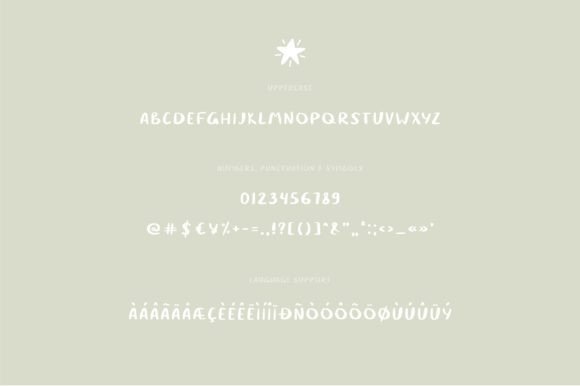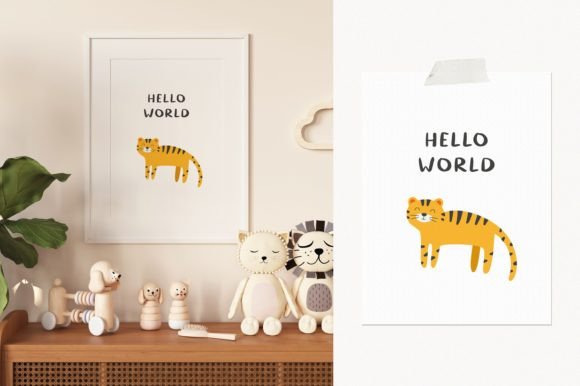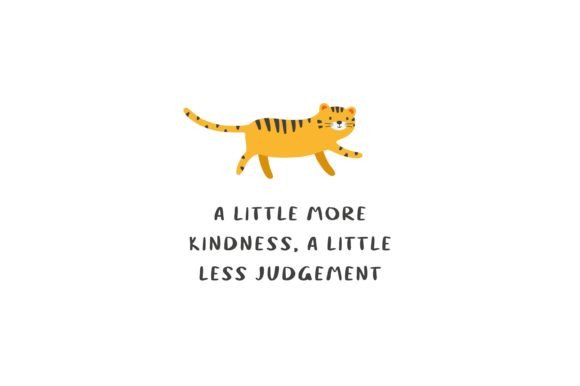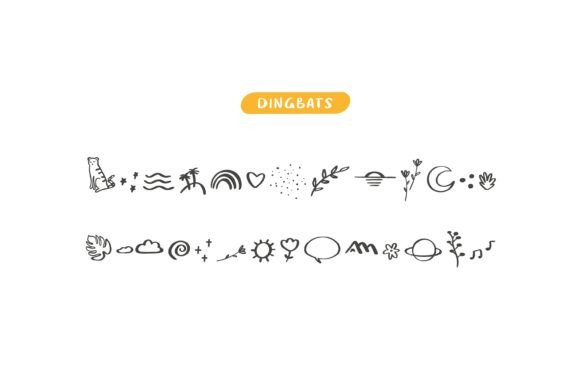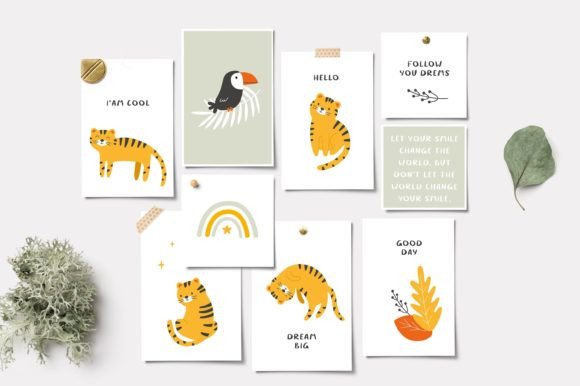
The Joy of Typography: Introducing Cute Tiger Font
Have you ever been working on a design project and suddenly, a spark of inspiration hits you? You envision a whimsical world filled with colorful characters and playful fonts. For me, that moment often involves digging through my font library in search of the perfect match. And that’s exactly where I found it – Cute Tiger Font.
Cute Tiger Font is a delightful display font designed to bring a smile to your face. With its friendly and approachable vibe, it’s perfect for cartoon-related designs, children’s games, quotes, titles, brand names, book covers, posters, and more. Whether you’re a seasoned designer or just starting out, this font is a valuable addition to your toolkit.
What sets Cute Tiger Font apart is its ability to evoke a sense of joy and playfulness, making it an ideal choice for designers looking to add a touch of whimsy to their creations. In this article, we’ll explore the world of Cute Tiger Font and discover why it’s a must-have for any designer looking to bring a smile to their audience’s faces.
Cute Tiger Font Key Features
- Unique Characteristics: Cute Tiger Font features a playful, hand-drawn design with rounded edges and soft lines, giving it a cute and endearing feel.
- Style Variations: The font comes in two styles: Regular and Bold, allowing designers to add emphasis and create visual hierarchy in their designs.
Cute Tiger Font Review
I recently had the chance to work with the Cute Tiger Font, and I must say it’s a unique and playful addition to any design project. ✨ One of the things that stands out about this font is its whimsical feel, making it perfect for children’s books, greeting cards, or any other project that needs a touch of fun.
- High-quality glyphs: The font includes a wide range of glyphs, including numerals, punctuation, and special characters, ensuring that your design is complete and professional-looking.
However, I did encounter a few limitations ⚠️ while working with the Cute Tiger Font:
- Compatibility issues: I experienced some compatibility issues with certain software and operating systems, which required me to seek alternative solutions.
- Limited language support: The font may not be suitable for projects that require support for multiple languages, as it only includes a limited set of language-specific glyphs.
Overall, the Cute Tiger Font is a great choice for designers who want to add a playful touch to their projects. While it has its limitations, its unique style and customization options make it a valuable addition to any design library.
Cute Tiger Font is perfect for creating playful and whimsical designs, such as:
- Children’s party invitations
- Food and beverage branding
- Gift tags and wrapping paper
- Quirky social media posts
Alternatives to Cute Tiger Font
Great Vibes is a fun, cursive script font that can be used for titles and headings in designs that require a playful touch. It has a similar whimsical feel to Cute Tiger Font, but with a more elegant and refined look.
Comparison: Great Vibes has a more polished and sophisticated design compared to Cute Tiger Font’s more childish and cartoonish feel. It’s suitable for a wider range of designs, from children’s books to wedding invitations.